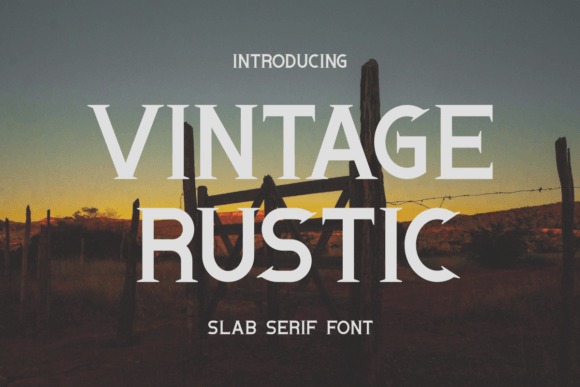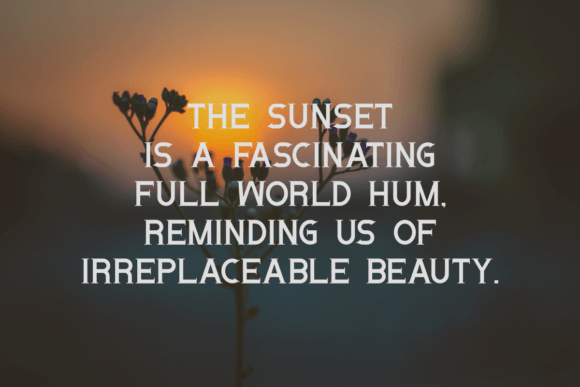
Vintage Rustic Font
Vintage Rustic is an elegant and sporty font. It is suitable for use in various t-shirt craft projects, hoodies, mugs, quotes, greeting cards, also jerseys and more.